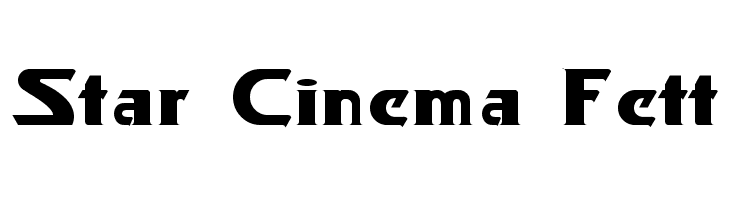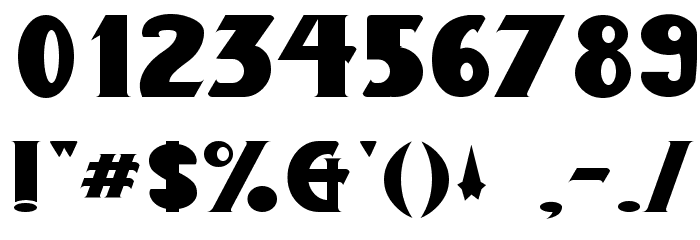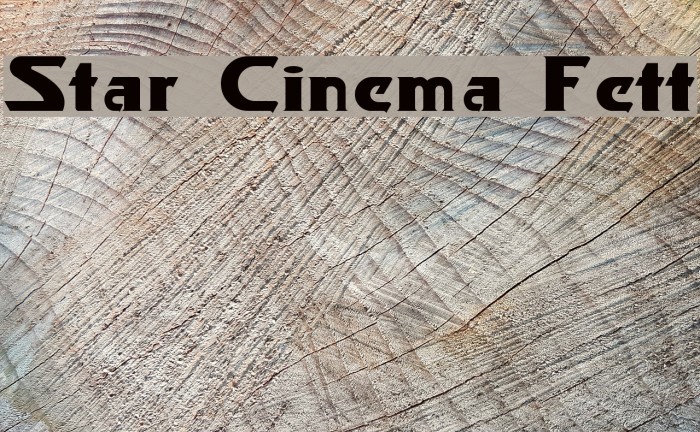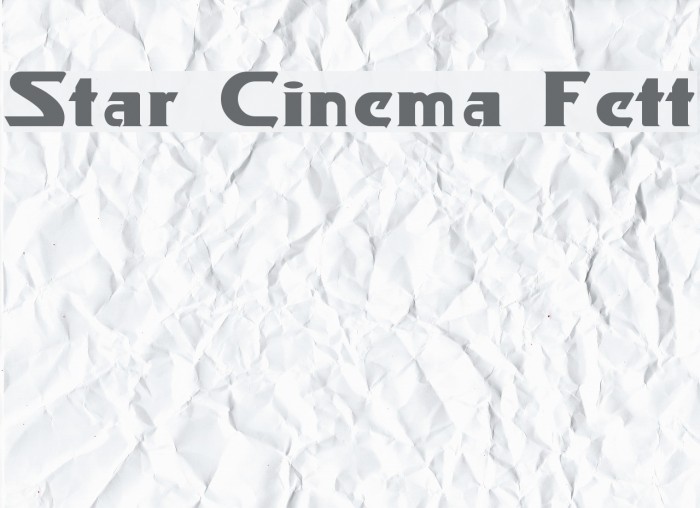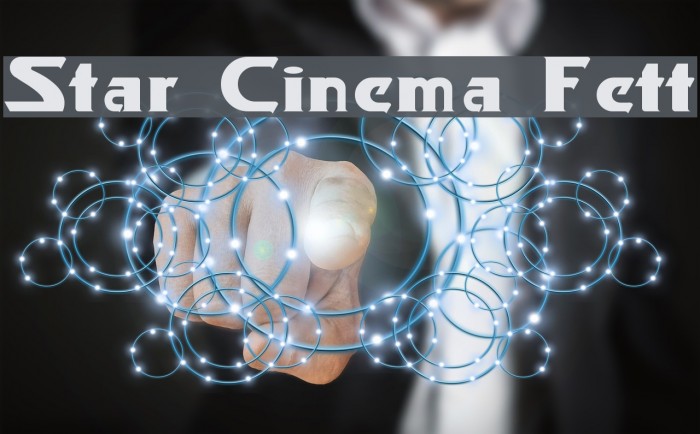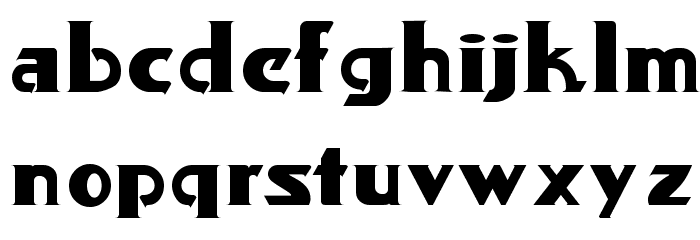
Star Cinema Fett Font
This font features a bold and dynamic design with a futuristic flair. The uppercase letters are characterized by sharp angles and geometric shapes, giving them a strong and commanding presence. The lowercase letters maintain a similar style, with unique cuts and curves that add to the font's distinctiveness. The numerals are bold and consistent with the overall aesthetic, ensuring readability and impact. Special characters are creatively designed, adding a touch of uniqueness to the font. The overall style is reminiscent of science fiction and modern design, making it suitable for projects that require a bold and eye-catching typeface.
A bold, futuristic font with sharp angles and geometric shapes.
• Font: Star Cinema Fett
• Proposed Projects: Ideal for movie posters, sci-fi book covers, video game titles, and branding for tech companies.
• Category: Decorative/Display
• Contrast: High
• Overall Style: Modern
• Use Case: Headlines, Logos